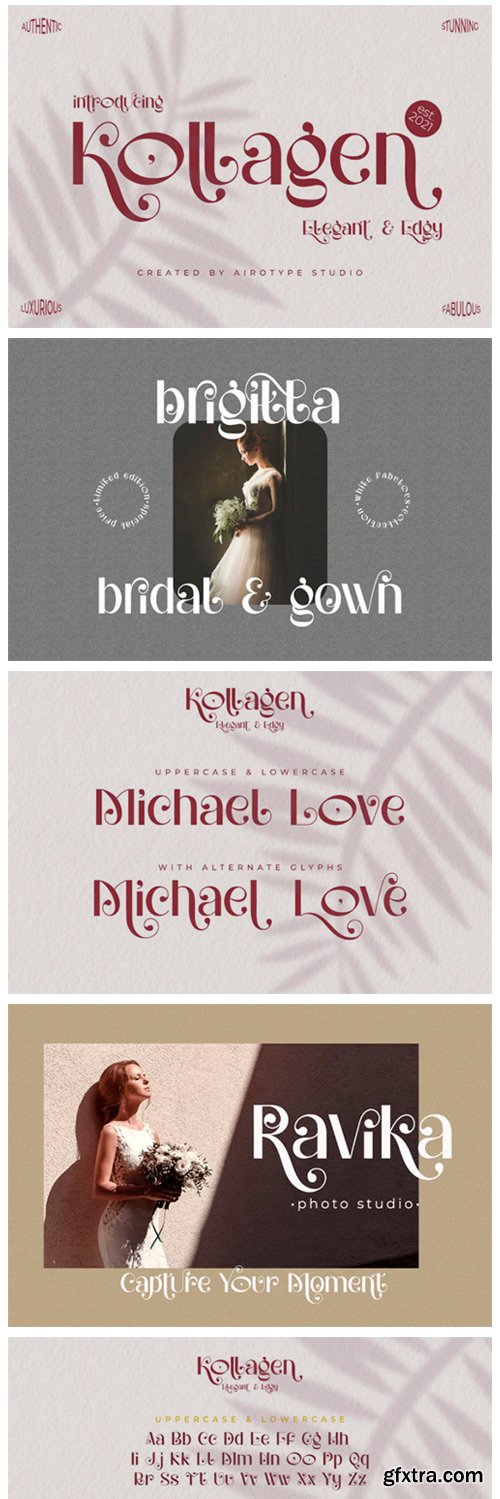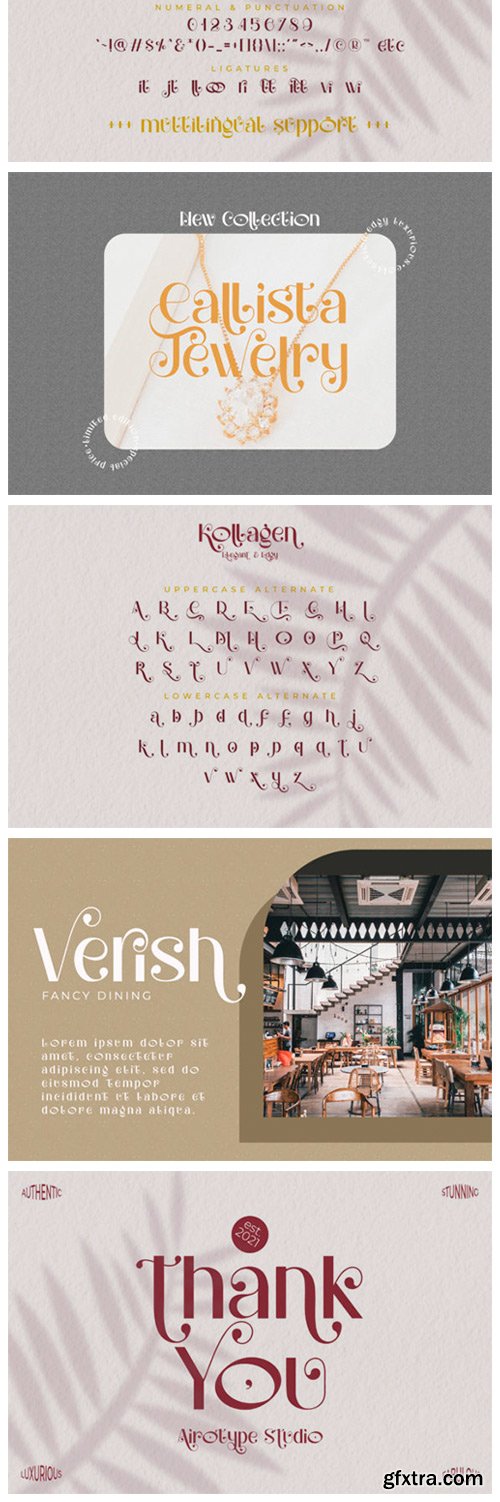
Kollagen Font
Kollagen is an elegant and distinct display font. This font is PUA encoded which means you can access all of the glyphs and swashes with ease! Fall in love with its incredibly versatile style and use it to create spectacular designs!
Kollagen Font
Kollagen is an elegant and distinct display font. This font is PUA encoded which means you can access all of the glyphs and swashes with ease! Fall in love with its incredibly versatile style and use it to create spectacular designs!